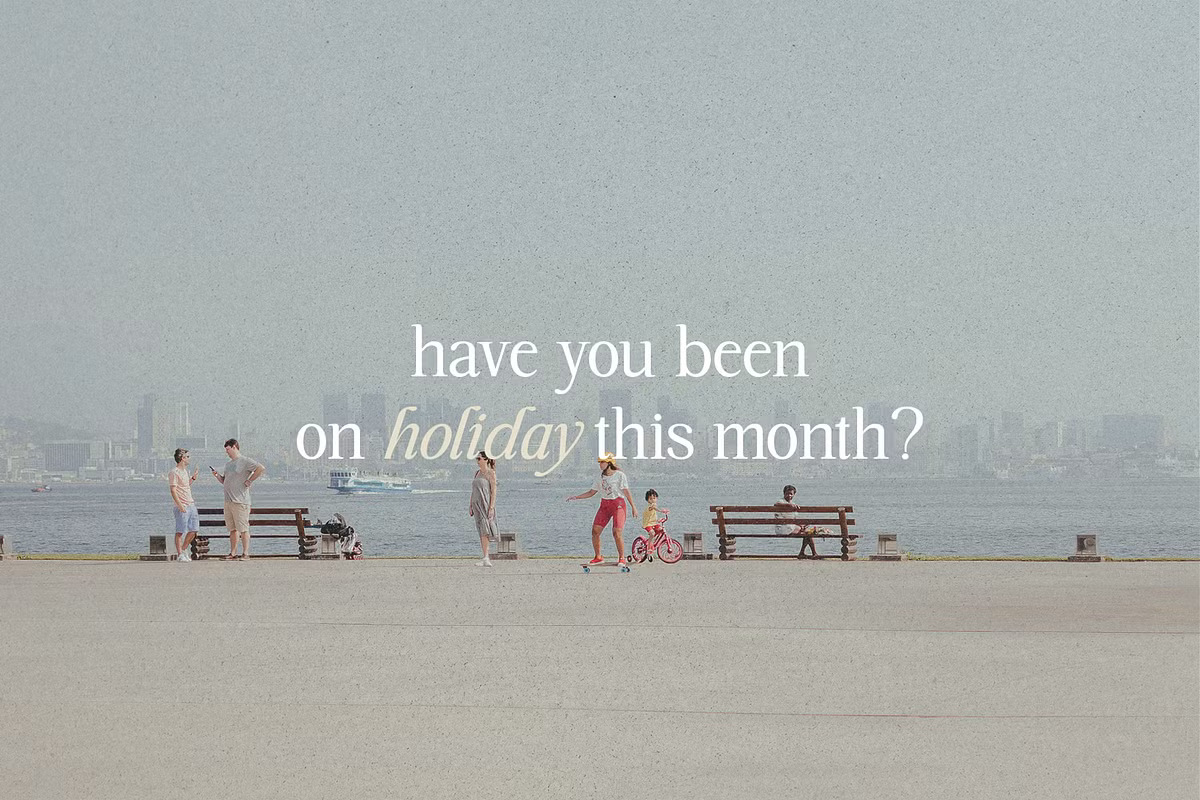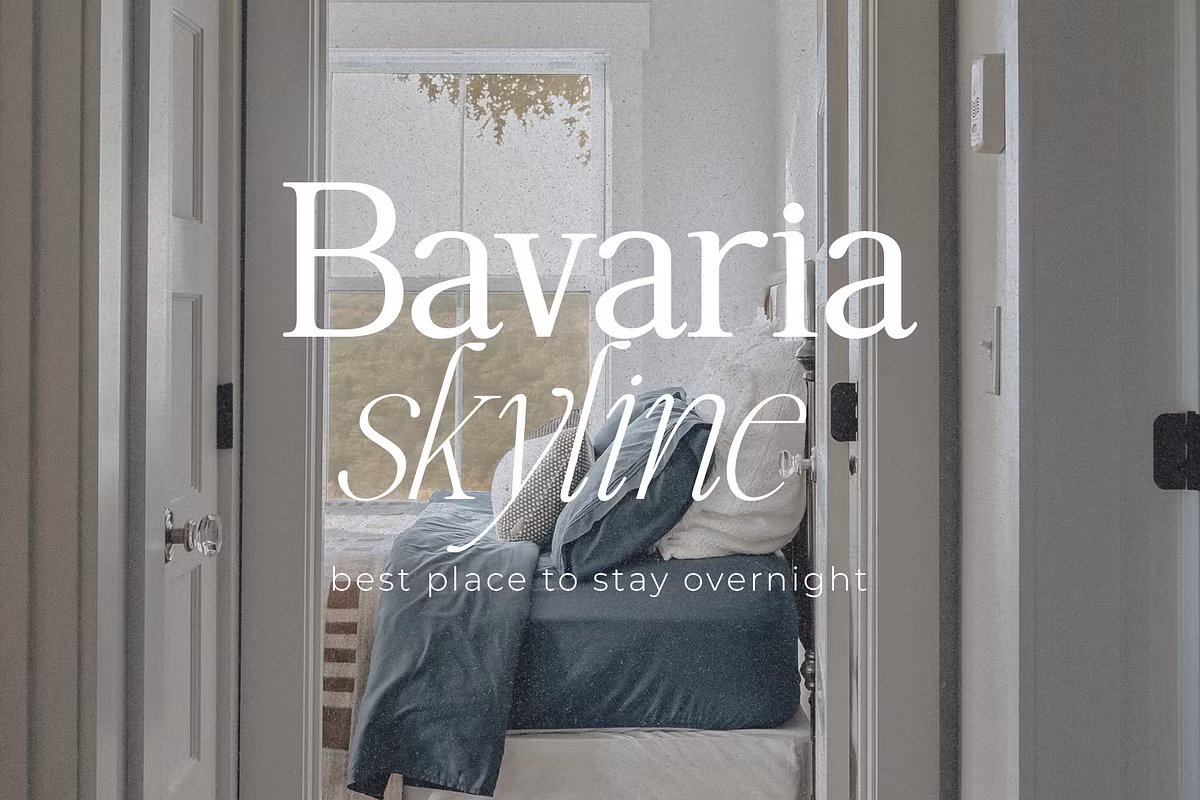
Highhope Serif
Highhope Serif: Classic Retro Font Family for Modern Design
The Highhope Serif Family is a really nice font that combines old-school style with modern touches. It’s great for adding a bit of class and nostalgia to your projects. What makes Highhope Serif special is its one-of-a-kind features and the fact that it can be used in many different ways. Whether you’re working on a website, a book, or a poster, this font will make your designs stand out and look amazing. It’s not just about looking good, though – Highhope Serif also has a certain elegance that will take your work to the next level. So, if you want to give your projects a unique and sophisticated feel, Highhope Serif is definitely worth checking out. With its perfect blend of old and new, it’s sure to make your designs look fresh and exciting.
Example of Highhope Serif font in design
Highhope Serif in a design context
The Highhope Serif Family has a classic look that’s both fancy and friendly. It’s got nice serifs and curves that make it look like old-fashioned typography, but it’s still modern. The way the thick and thin lines work together is really nice, making it look interesting and easy on the eyes. This font is great because it’s got a good balance of old and new, making it perfect for lots of different uses. The serifs are elegant and the curves are smooth, which gives it a timeless feel. Overall, the Highhope Serif Family is a great choice for anyone who wants a font that’s both classic and contemporary. It’s sophisticated, but also approachable, making it a great option for a wide range of projects.
One of the defining characteristics of Highhope Serif is its ability to evoke a sense of nostalgia. It reminds us of the elegance found in vintage signage, book covers, and classic advertisements. This font family is meticulously designed to resonate with those who appreciate timeless beauty in typography.
You can use Highhope Serif in lots of different ways. It’s great for making a modern website, designing a fancy invitation, or creating a logo that really stands out. This font family gives you lots of options to make your projects look amazing.
The Highhope Serif Family is really versatile, it’s got a huge range of characters that can meet all sorts of design needs. You get all the usual uppercase and lowercase letters, numbers, and punctuation marks, plus it supports lots of different languages, which is great for projects that need to reach a global audience. This makes it a great choice for designers and creatives who work on international projects, as it can handle all the different language requirements. With its extensive character set, the Highhope Serif Family is a practical and useful font to have in your design toolkit.
Character set of Highhope Serif font
Character set showcasing Highhope Serif
Highhope Serif has some really cool features that let you make your designs truly special. You can use its special letter connections and style options to add a personal touch to your work. This means you can create typography that really grabs people’s attention and makes your project stand out.
The font family comes in a range of weights, which is really useful. This means you can pick the exact weight that suits your design, so if you want to make a big impact, you can go for something bold, or if you prefer a more understated look, you can opt for a lighter weight. It’s all about having options to get the look just right.
Highhope Serif is designed for a wide range of applications, catering to both print and digital media. Here are some of the most effective use cases:
• Branding: The elegance and timelessness of Highhope Serif make it an excellent choice for branding projects. It can help convey a sense of refinement and quality in logos and brand materials.
• Editorial Design: Highhope Serif is a great choice for making your magazines, brochures, and newsletters look really good. It adds a touch of class to the way your text is laid out, making it easy to read and nice to look at.
• Invitations and Greeting Cards: The charming retro style of this font family is perfect for creating stunning invitations for weddings, parties, or other special occasions.
• Web Design: Highhope Serif works beautifully in digital formats, making it suitable for websites, blogs, and social media graphics. Its modern twist on classic design ensures that it captures attention online.
Highhope Serif examples in various use cases
Highhope Serif in different design applications
To really make Highhope Serif stand out, try matching it with other fonts that have a similar vintage feel. This will help create a cool, retro look that’s perfect for your design. Here are some ideas for fonts that go well with Highhope Serif:
• You can pair Highhope Serif with simple sans-serif fonts like Montserrat or Open Sans to create a nice balance. The clean lines of these fonts really make the classic look of Highhope Serif stand out.
• For a more casual and fun look, you could pair Highhope Serif with a script font like Pacifico or Great Vibes. This mix can add a playful feel to your designs, but still keep them looking classy.
Highhope Serif displayed in branding material
The Highhope Serif Family is a great tool for designers, combining old and new styles. It has many different character sets, weights, and can be used in lots of ways, from creating brands to designing editorials. You can pair it with other fonts in a thoughtful way and even get custom options, making Highhope Serif more than just a font – it’s a way to make your designs really stand out. See what you can do with Highhope Serif and let your imagination run wild! It’s perfect for making beautiful and effective designs, and with its many uses, you can try out lots of different ideas. Whether you’re working on a big project or just want to add some style to your work, Highhope Serif is a great choice.